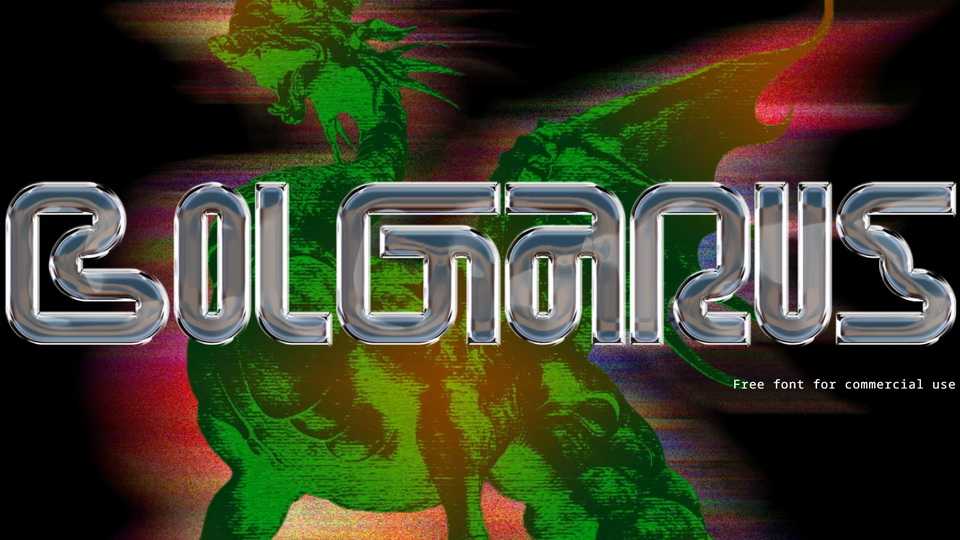
Download Bolgarus font, a typeface that combines non-standard, futurism and the author’s love for his roots. The study of the history of his people and religion led to the creation of Bolgarus font.
Designer: Karim Bolgari